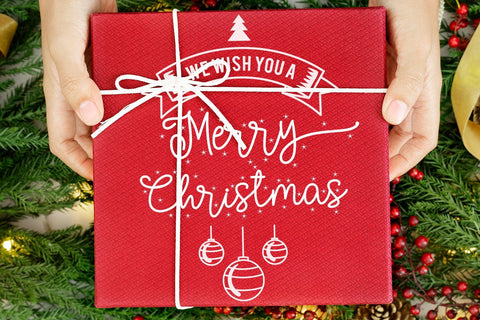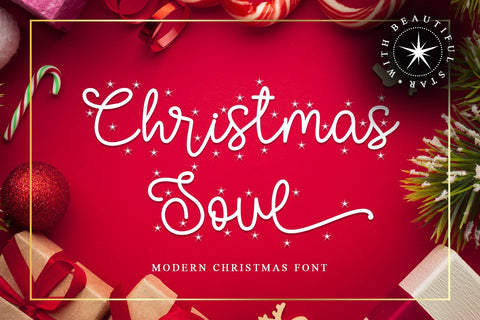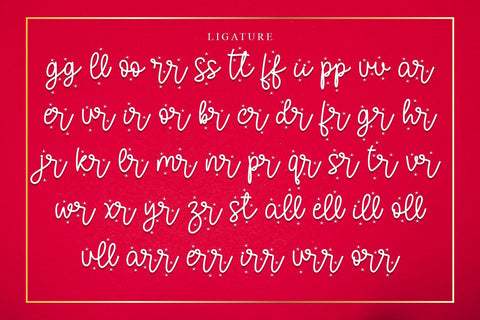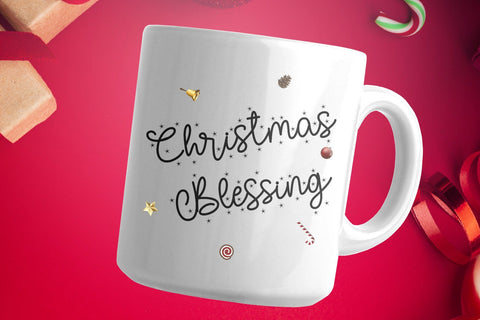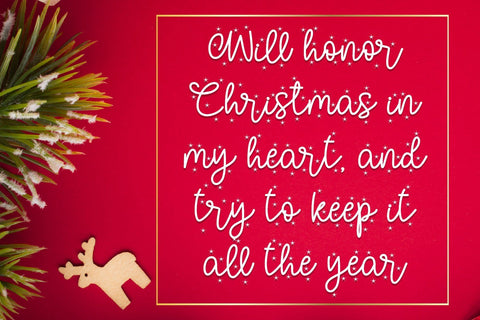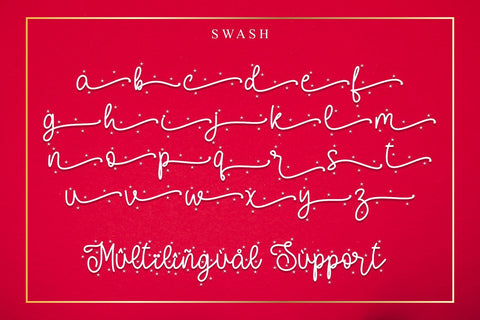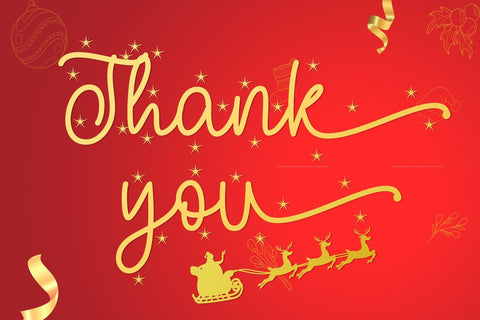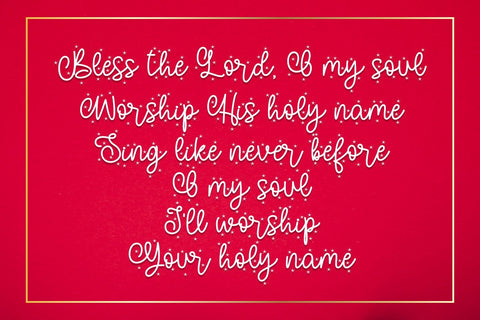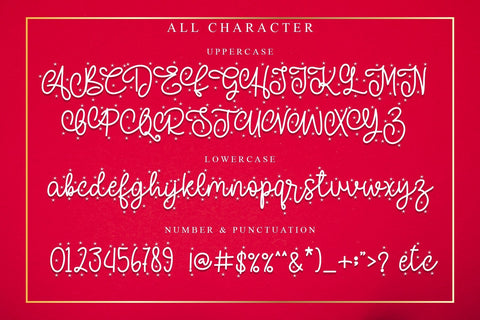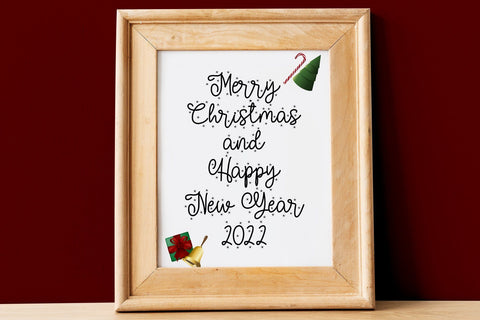
Christmas Soul
Christmas Soul is a friendly, fresh, rich, and beautiful handwritten font. It is ideal for holiday-themed greeting cards, invitations, logotype, branding, stationery, poster, and any project that requires a beautiful touch. Fall in love with its incredibly distinct and timeless style and use it to create spectacular designs! This font is PUA encoded which means you can access all of the glyphs.